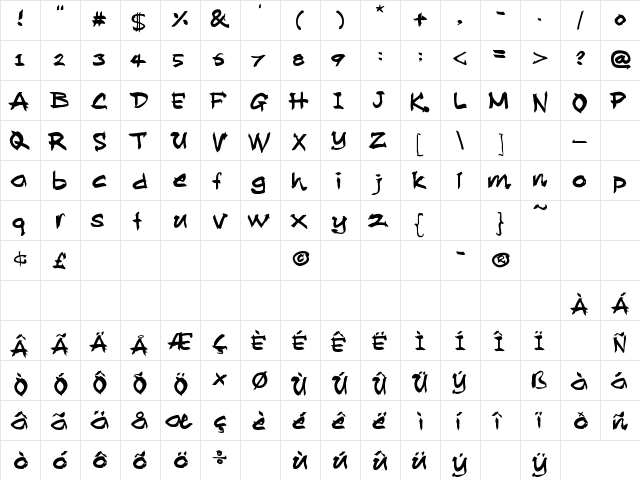
Allan RoosterV.02 Regular
| Designer | RODI DE ASIS |
Design Context for Allan RoosterV.02 Typeface
Allan RoosterV.02 is a composed and adaptable typeface that performs quietly and consistently across a wide range of design contexts.